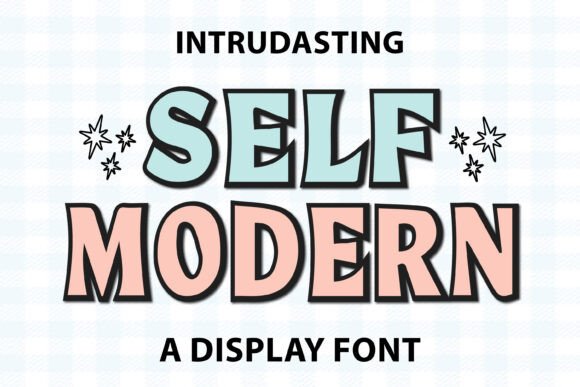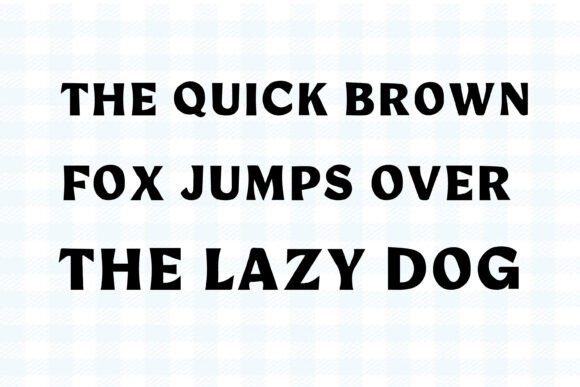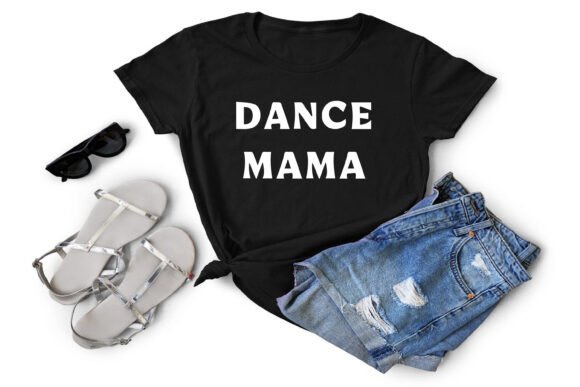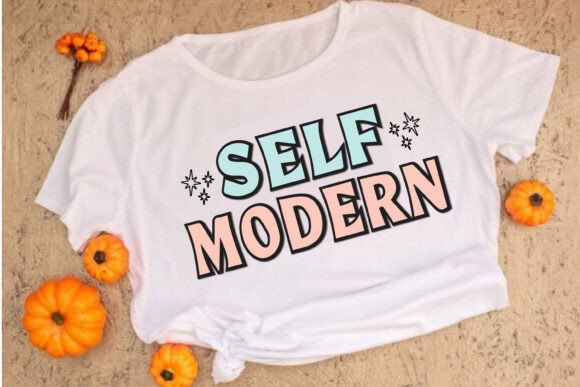
Self Modern Font: A Playful Display Font for Creative Projects
About the Self Modern Font
Introducing the Self Modern Font, a beautifully crafted typeface designed to elevate your creative projects. Introducing a vibrant splash to your creative projects, our color font embodies joy and whimsy that is bound to elevate your design endeavors. An absolute fit for branding initiatives, packaging designs, riveting logotypes, and gripping headlines, it also adds a sprinkle of charm to wedding invitations and similar creatives. Embrace and experience the transformative power of this uplifting font in your designs.
Self Modern Font Usage Examples
Self Modern Font Example